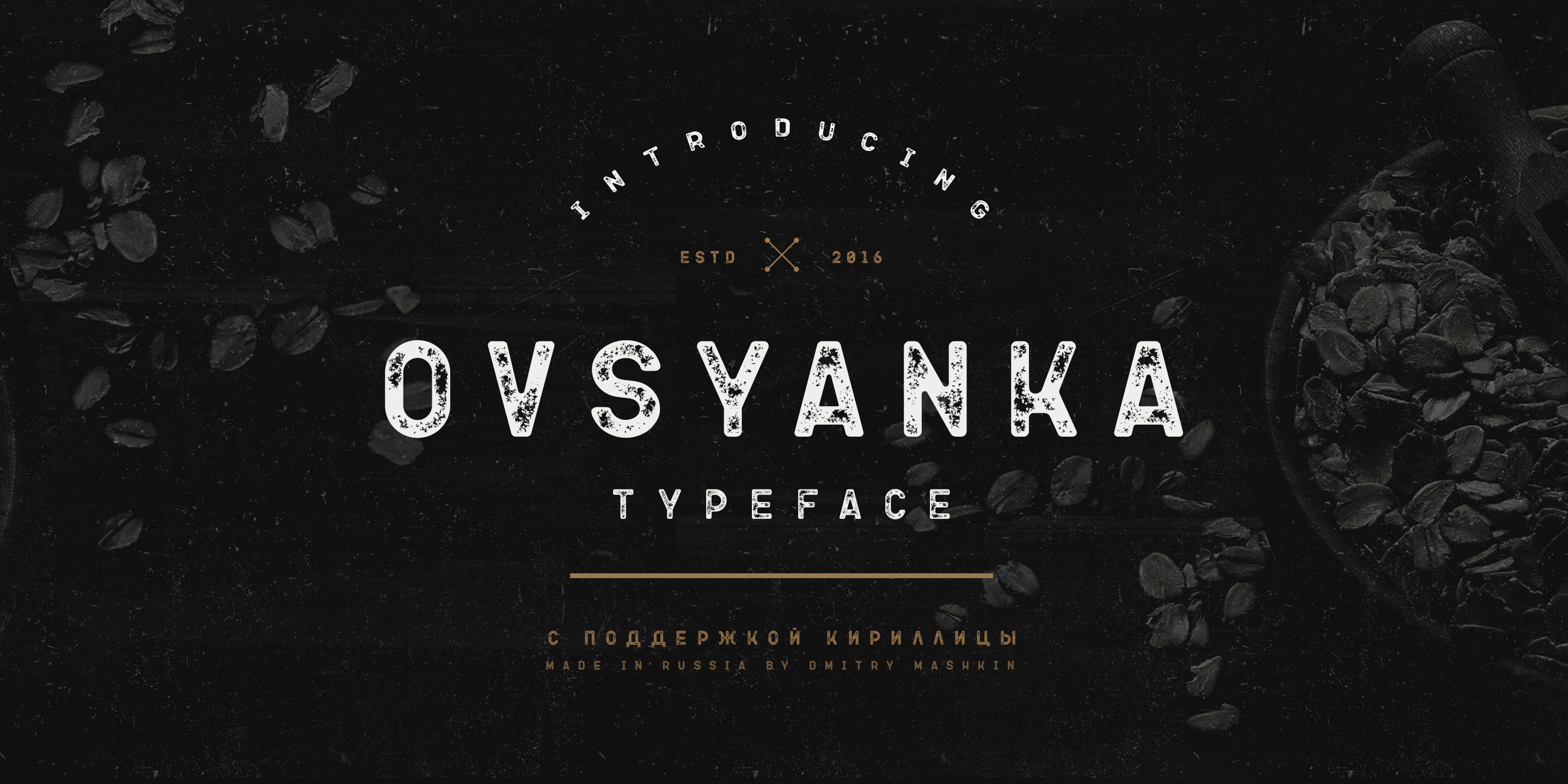
Designed by Dmitry Mashkin, Ovsyanka is a grunge and display sans font family. This typeface has two styles and was published by ArtCoast.
Ovsyanka is the new typeface with rounded corners and the effect of wear letters. The family is ideal for packaging various products, for the design of boxes of chocolate or coffee packets, for all that can be tasty and healthy. :) Font called oatmeal, which we all love and occasionally eat.
Foundry | ArtCoast |
Styles | Display Sans, Grunge |
Designer | Dmitry Mashkin |